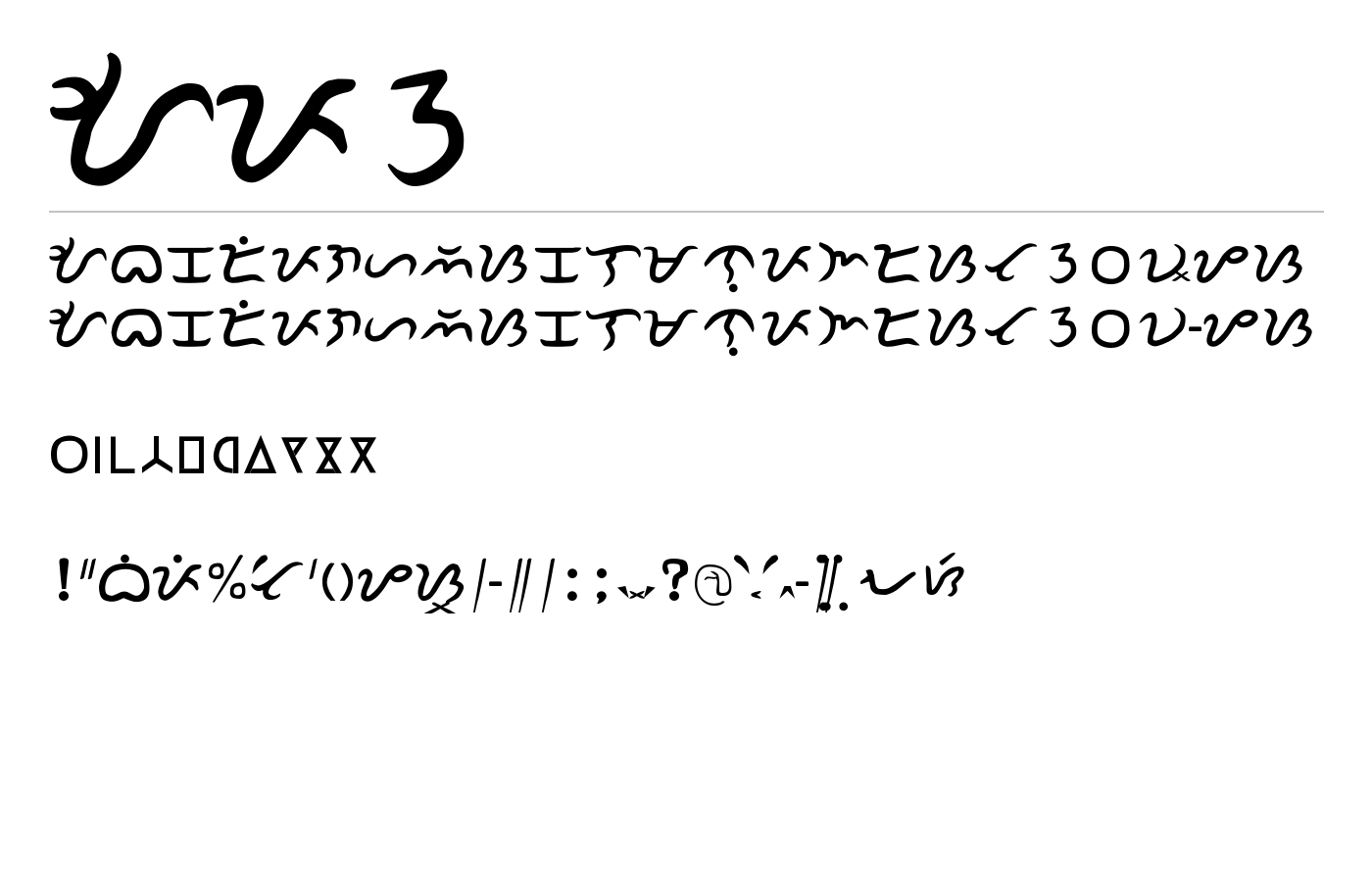
Apu Font is a unique, stylized script typeface that combines fluid, calligraphic strokes with an organic, hand-drawn feel. Its characters are playful yet intricate, featuring varied stroke widths and distinctive letter shapes that give it an expressive, artistic personality, making it ideal for creative projects, branding, or cultural designs seeking a bold and original look. This font works best in headlines, logos, or decorative uses where its distinctiveness can truly stand out.
Apu Font
About Apu Font